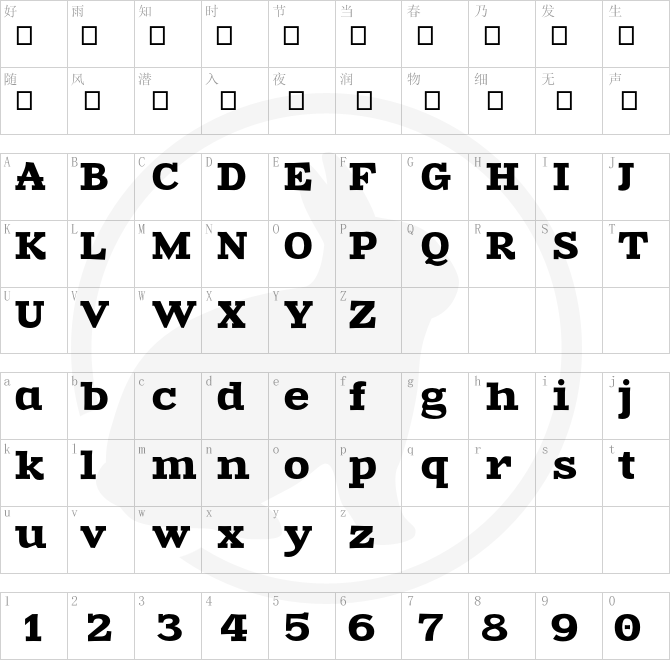
- Font Name:Zantroke
Zantroke.otf is a very beautiful artistic font, Zantroke.otf is widely used in the design and printing of various books and pictures,Zantroke.otf has a strong visual impact,Zantroke.otf is a commonly used font in newspapers, magazines and books, and is used in posters, e-commerce Poster design, store design, logo design, font design and other fields.Zantroke.